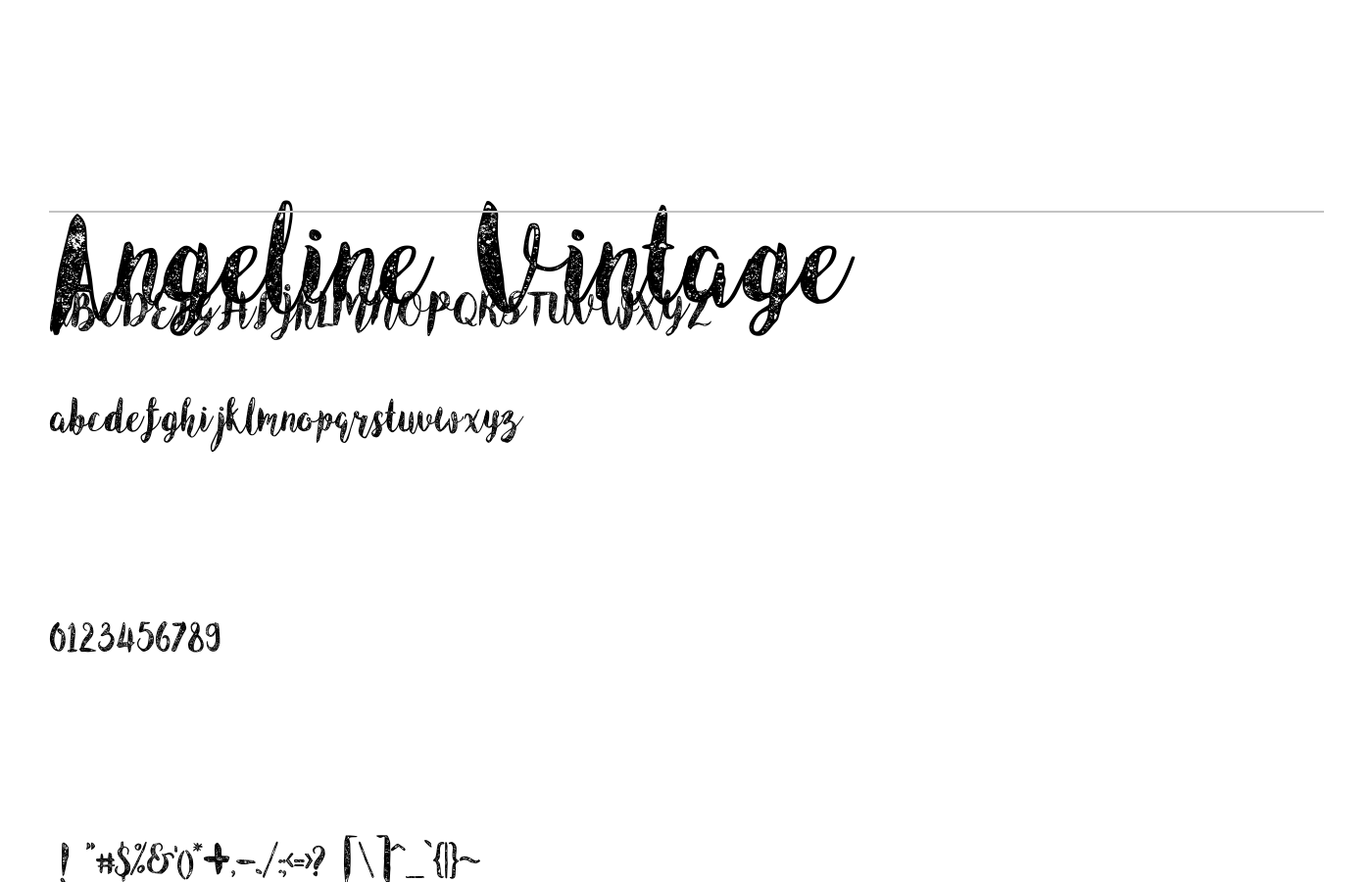
Angeline Vintage is a charming handwritten script font with a vintage appeal, showcasing a textured, brush-like stroke that gives it a warm and nostalgic feel. Its tall, slightly condensed letterforms have a playful yet elegant flow with unique swirls and flourishes, making it perfect for creative branding, invitations, and packaging that aim for a personal, artisanal touch. This font works best in display settings where its distinctive character and handcrafted vibe can shine.
Angeline Vintage Font
About Angeline Vintage Font